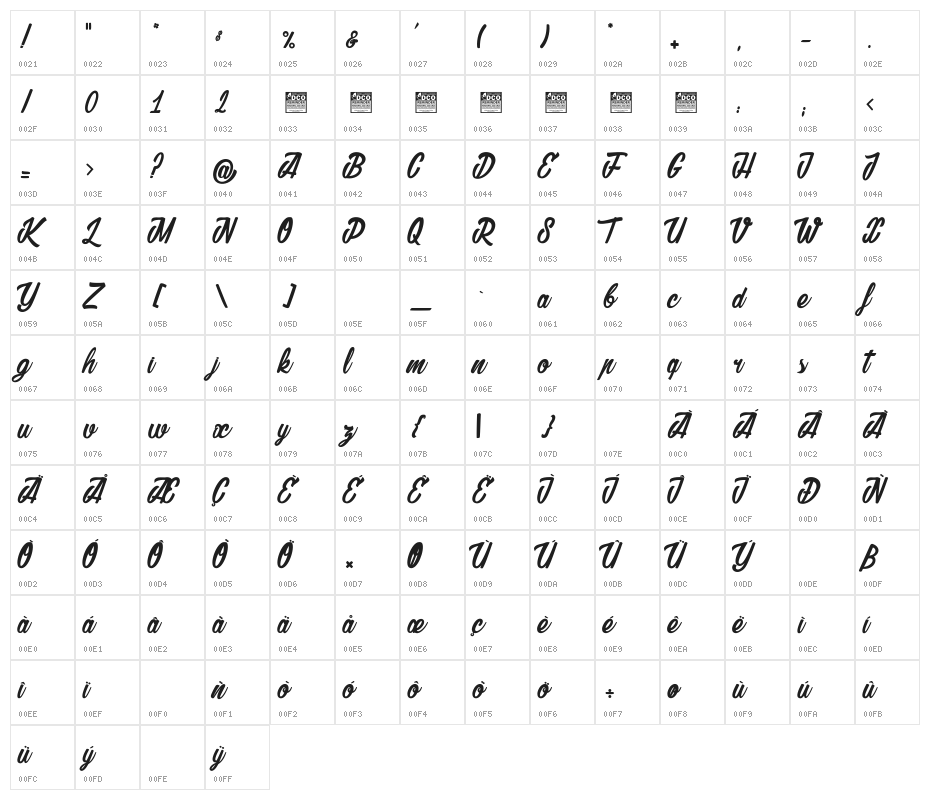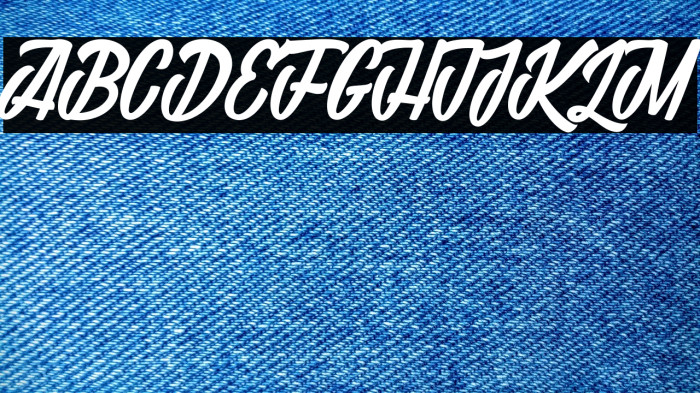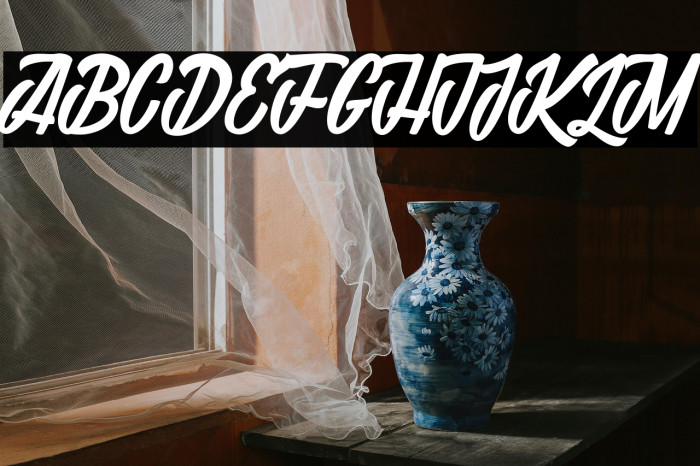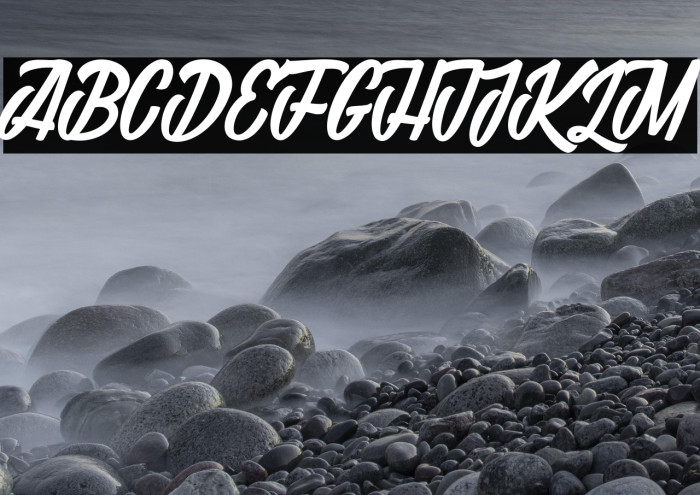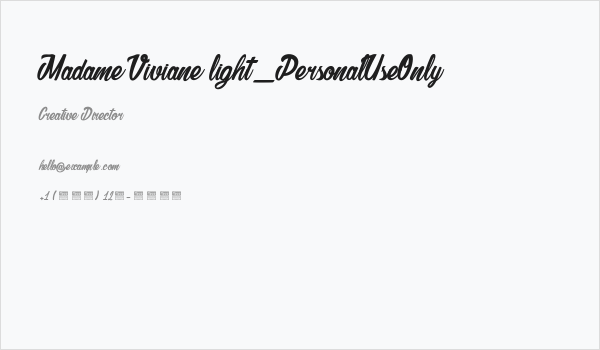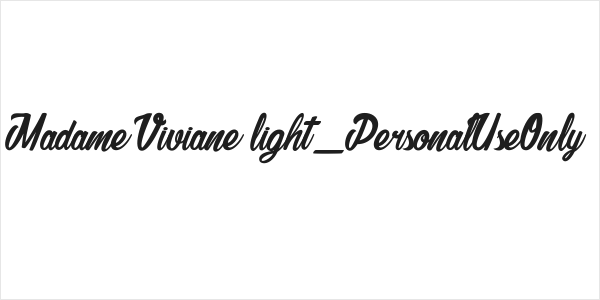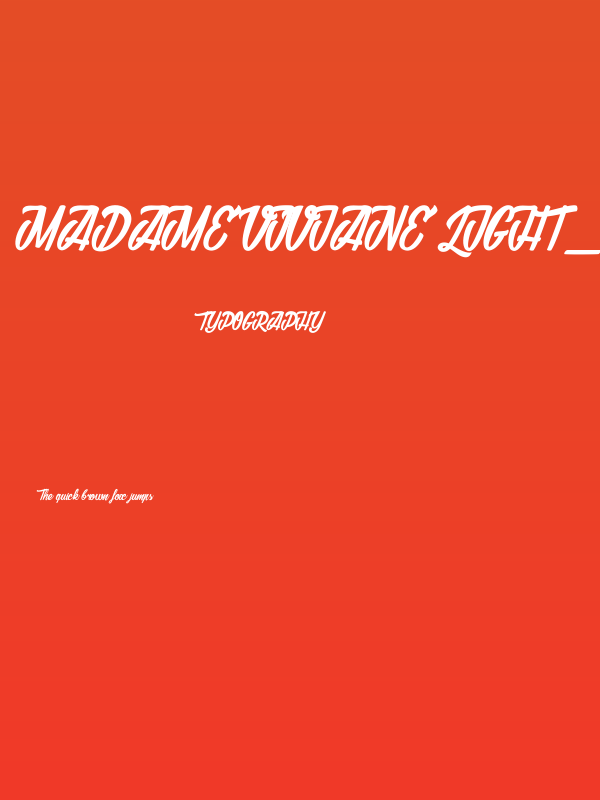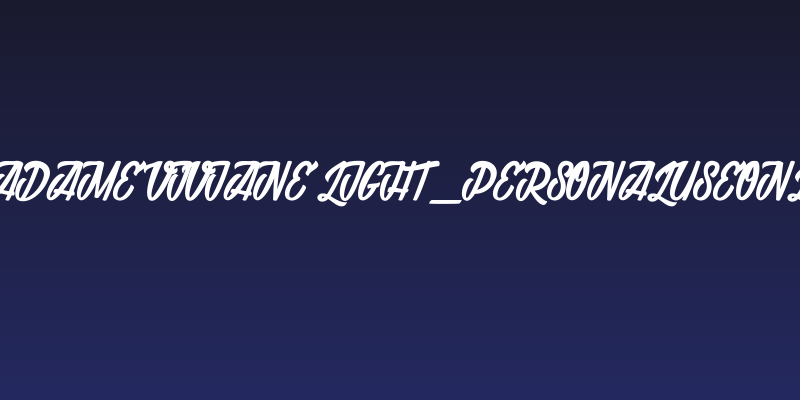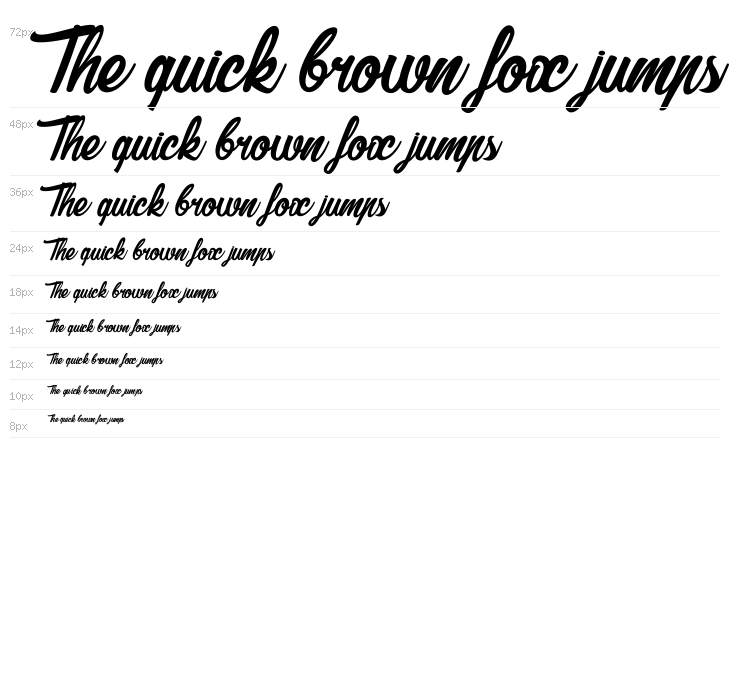
Madame Viviane light_PersonalUseOnly Font
Madame Viviane light_PersonalUseOnly Description
This font features a flowing, cursive style with elegant, sweeping strokes that give it a dynamic and sophisticated appearance. The uppercase letters are bold and prominent, with a slight slant that adds to the fluidity of the design. The lowercase letters maintain the same cursive style, with smooth connections between each character, enhancing readability while preserving the decorative nature. The numbers and special characters are consistent with the overall aesthetic, ensuring a cohesive look across all text elements. This font is ideal for projects that require a touch of elegance and flair, such as invitations, branding, and decorative headings.